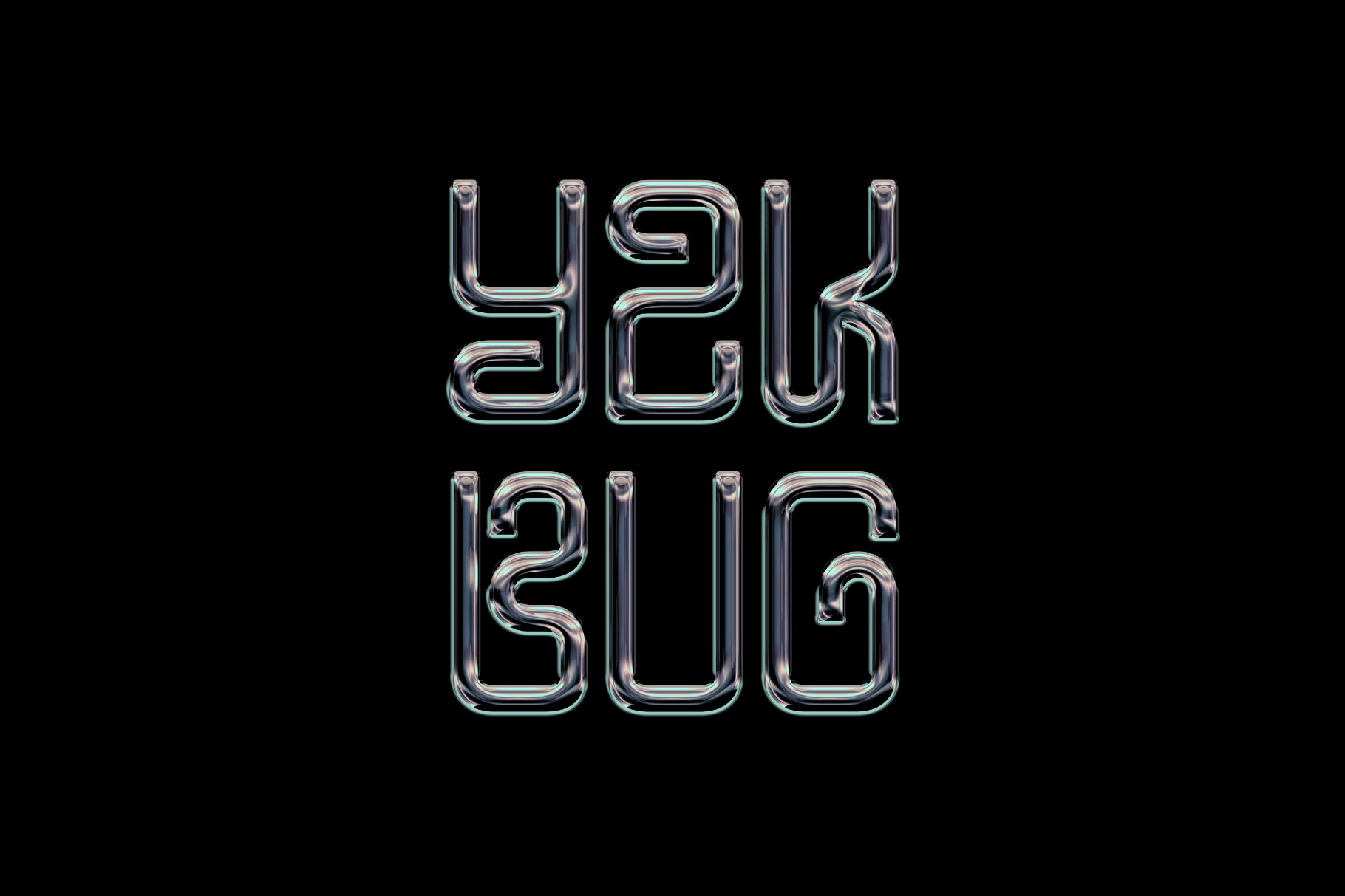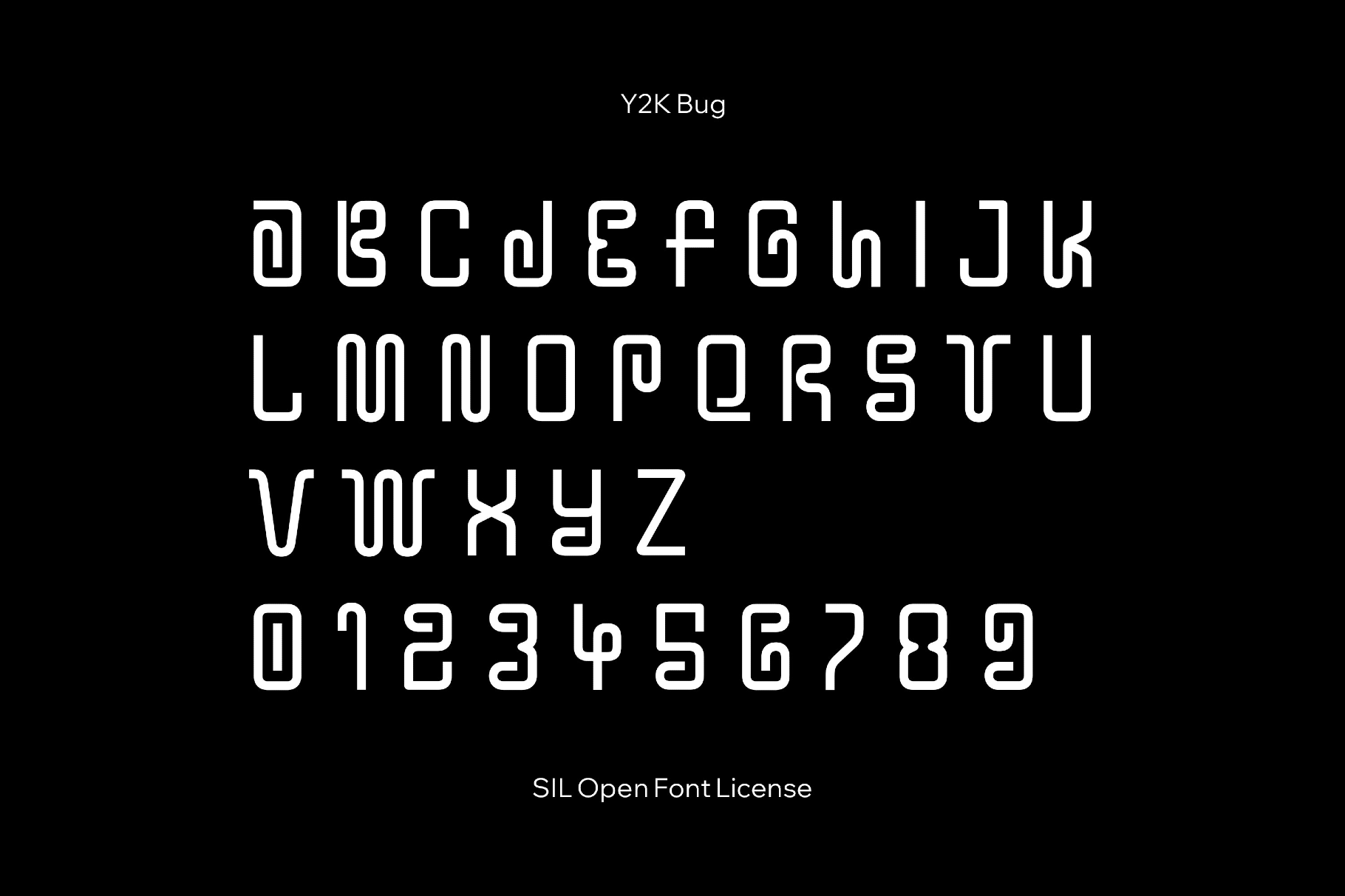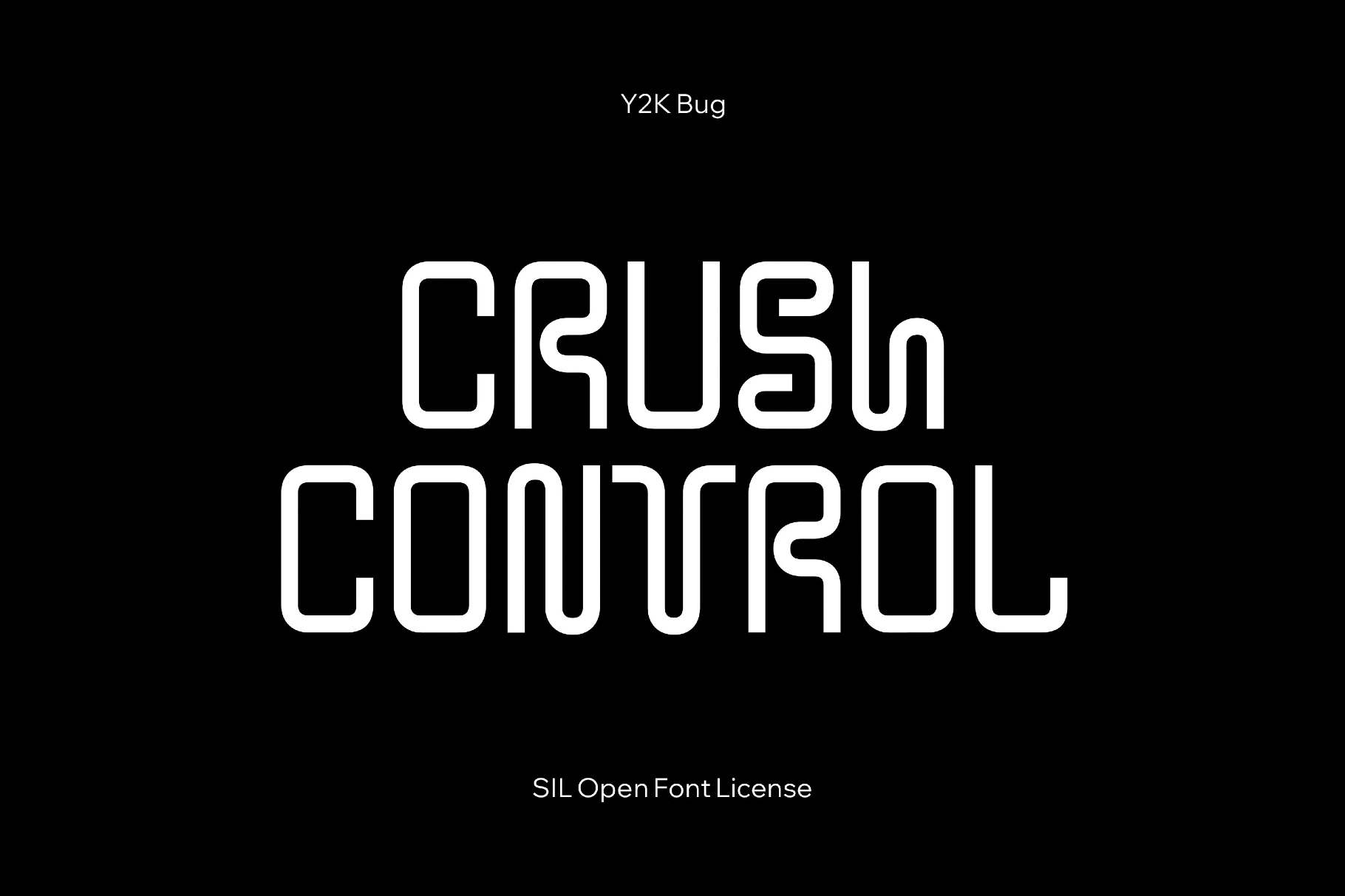
Y2K Bug Font
Y2K Bug
Y2K Bug is a jittery, pixel-tinged font that riffs on early-2000s dial-up interfaces and glitch art. Its angular curves, tight spacing, and a compressed silhouette are built for splash screens and loading bars. It works beautifully for poster headlines, nostalgic branding, club flyers, net art graphics, error dialogs, merch designs, techno or hyperpop cover art, gaming overlays, zine titles, app splash screens, and social ads.
- Only uppercase letters.